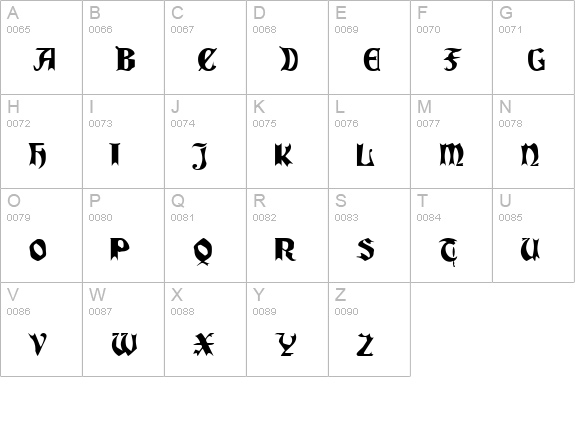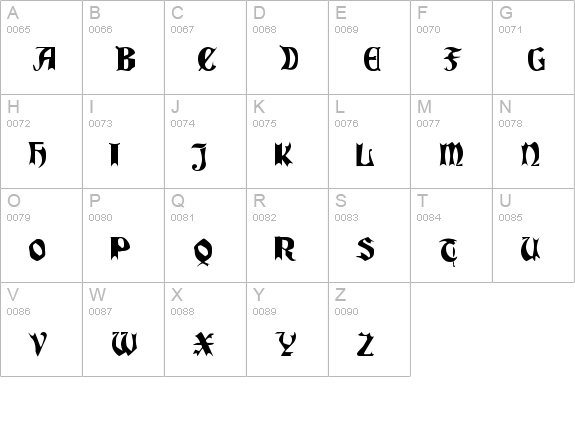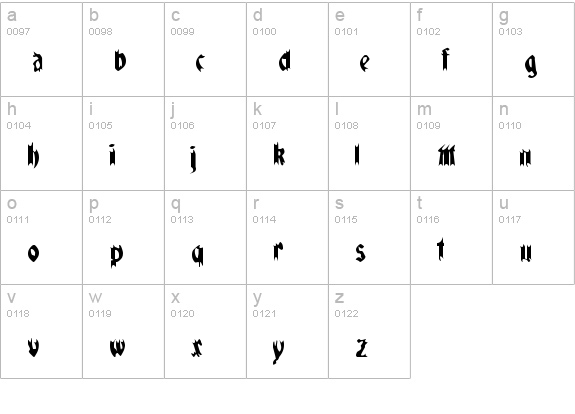
QuaelGothicCondensed Font Details
QuaelGothicCondensed is an exquisite font that perfectly captures the essence of Gothic typography. With its bold, condensed letterforms and intricate details, this font exudes a sense of mystery and elegance. Each character is meticulously crafted, showcasing the unique characteristics of Gothic lettering. This font is ideal for various design projects that require a touch of sophistication and a hint of darkness. Whether it's for posters, book covers, signage, or branding materials, QuaelGothicCondensed will make your text stand out and leave a lasting impression. What makes QuaelGothicCondensed even more enticing is the fact that it is available for free! You can easily download this font from FontsMarket.com, a trusted source for high-quality fonts. With just a few clicks, you can enhance your design projects with this stunning typeface without having to spend a dime. So, why wait? Embrace the allure of Gothic typography and elevate your designs with QuaelGothicCondensed. Download it freely at FontsMarket.com and unleash your creativity today!